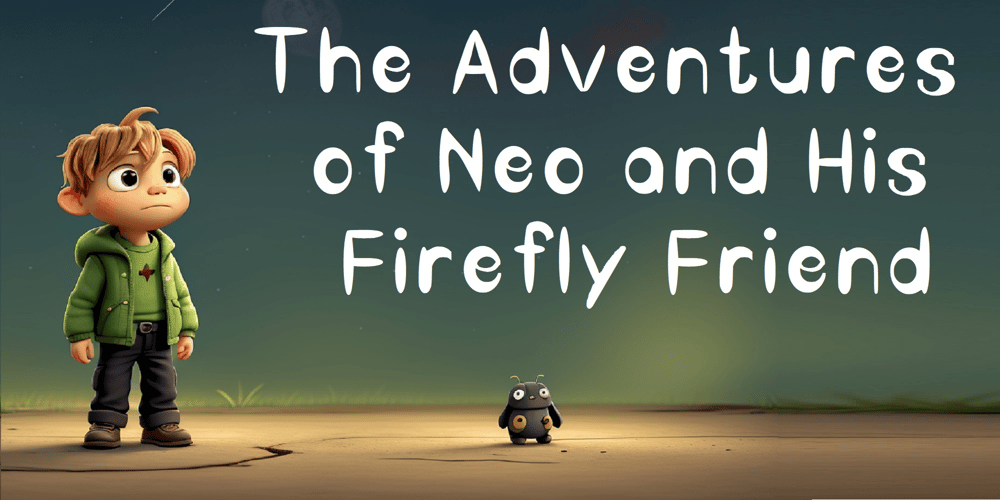
Fibi Font Family was designed by Lena Zus and published by TerraType. Fibi contains 1 styles and family package options. Fibi is a delightful and playful font designed especially for children. Each letter is crafted with soft, rounded edges and a touch of whimsy, making it perfect for young readers.Playful Curves: The letters are full of joyful curves and loops, giving the font a friendly and approachable feel.Bold and Clear: The thick lines ensure that each character is easy to read, even for early readers just learning their letters.Fun Details: Subtle, charming embellishments on some characters add a dash of fun without compromising readability.Bright and Cheery: The font’s design exudes happiness and energy, making it ideal for children’s books, educational materials, and playful posters.Fibi brings stories to life and sparks joy in every word, making reading a magical experience for kids.